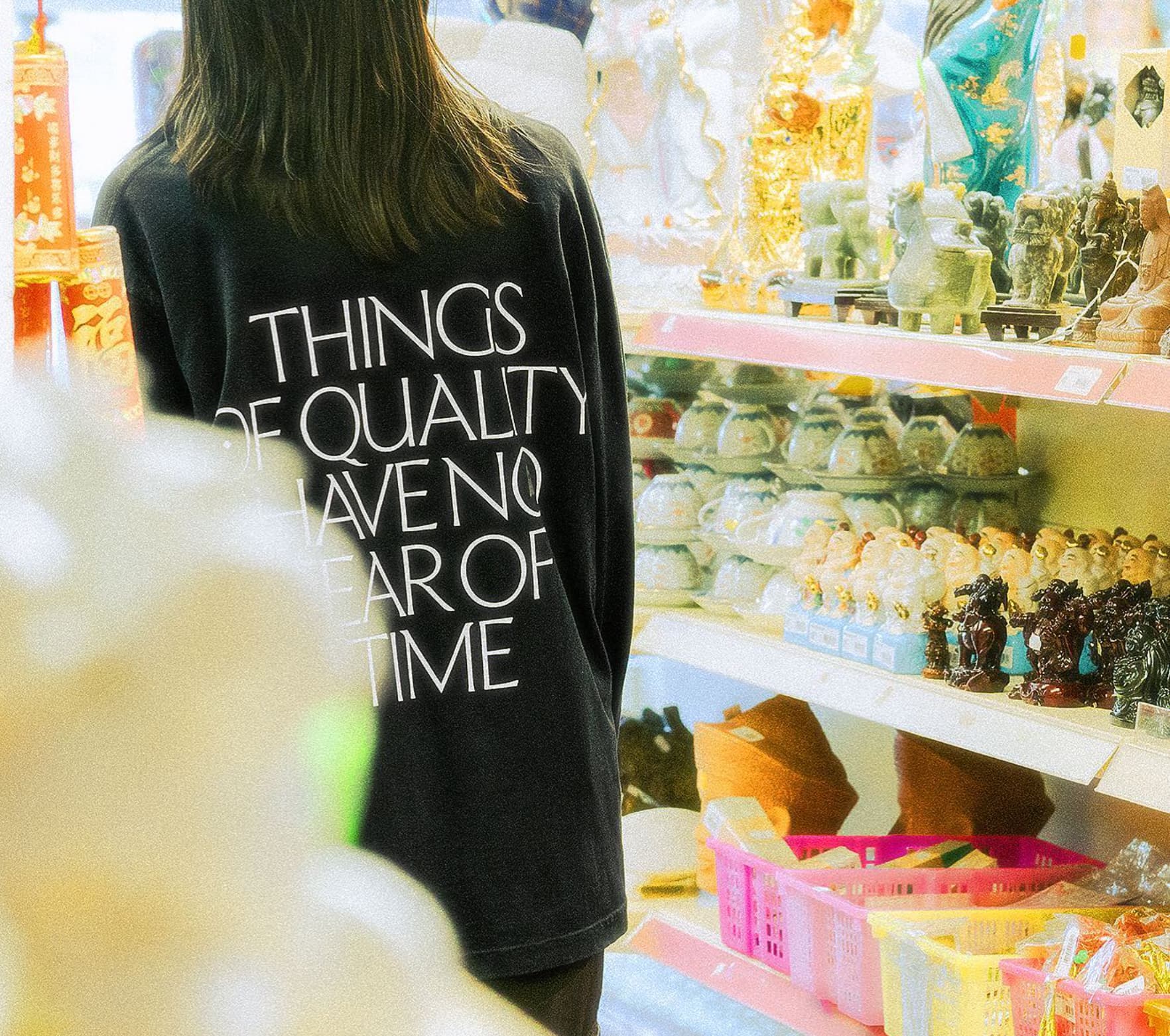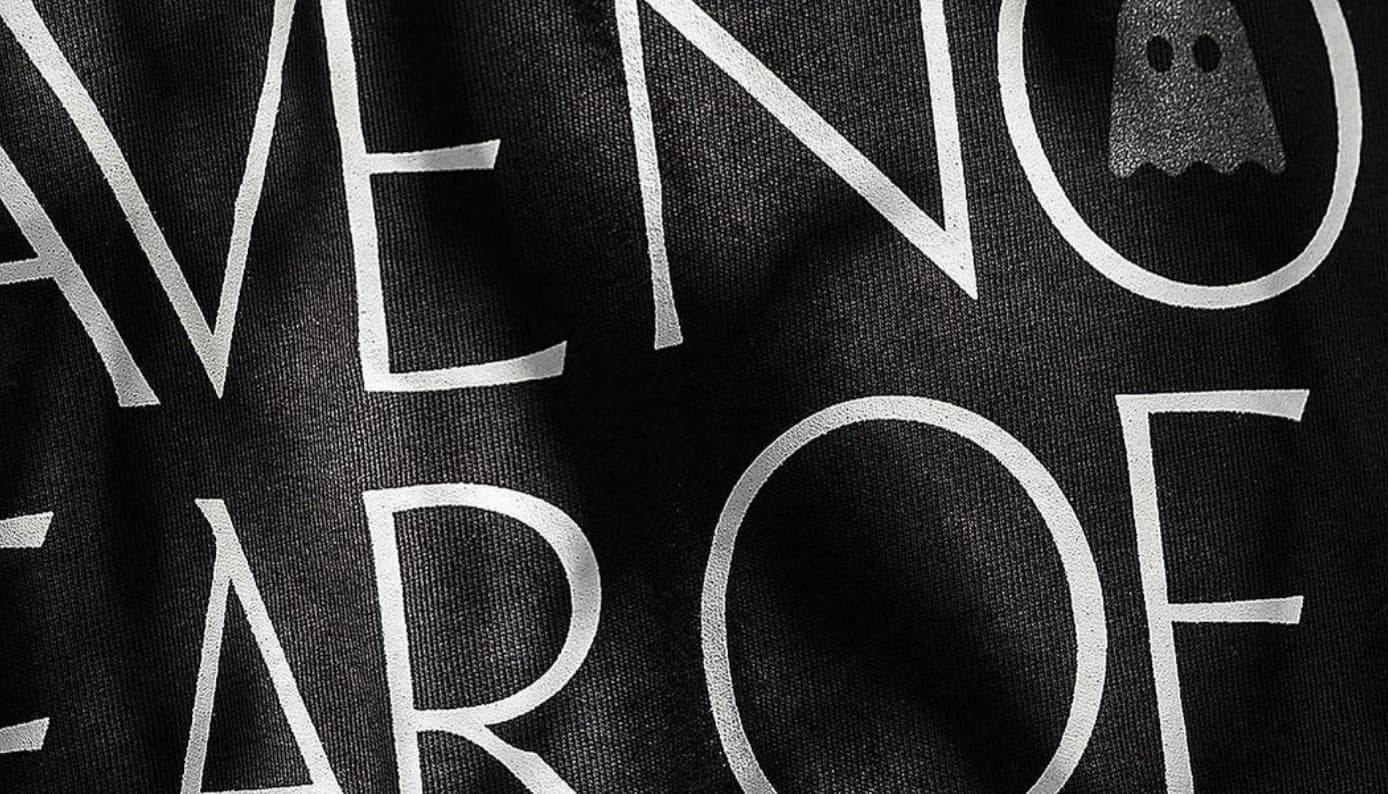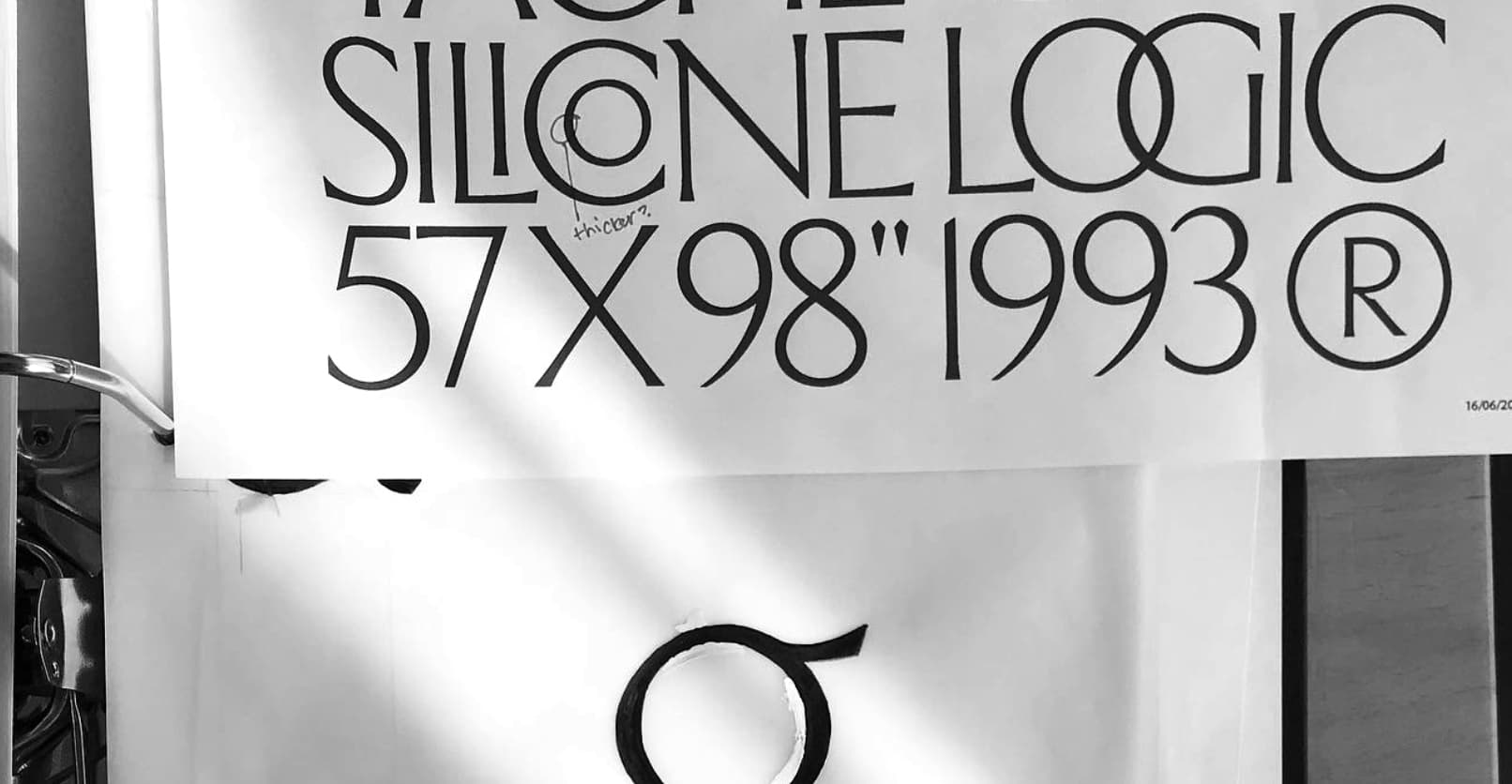
Ceraph
Piercy began Ceraph in 2018 as an experiment, a sketched word featuring whiplash forms and flared serifs. "It slowly evolved into a more ambitious and refined project. I wanted the typeface to embody grace and strength, and this aim was the north star throughout its development. This is my first serious undertaking of typeface design, and it took a year on-and-off to settle on the concept." "Ceraph’s flared stroke endings give them an engraved quality. The uppercase proportions and construction reference Roman capitals, while the lowercase has more of a calligraphic approach. This is a flared serif typeface, but it doesn’t follow any particular historical model." Even so, Piercy is forthcoming about her influences: "The work of Hermann Zapf, Giovan Francesco Cresci, and Jakob Erbar were significant. Typeface-wise, Canela was a specific reference point, too. Over time, my influences also became more humanistic, so my interest and practice in calligraphy further moulded this project.
Ceraph in use for Ghostly International, Things of Quality Have No Fear of Time.
VIRTUES
calt
Contextual Alternates
case
Case-Sensitive Forms
dlig
Discretionary Ligatures
liga
Standard Ligatures
lnum
Lining Figures
locl
Localized Forms
onum
Oldstyle Figures
ss01
ss02
ss03
ss04
ss05
ss06
ss07
swsh
Swash
titl
Titling